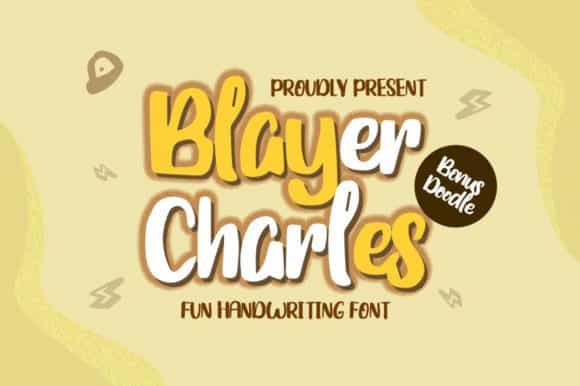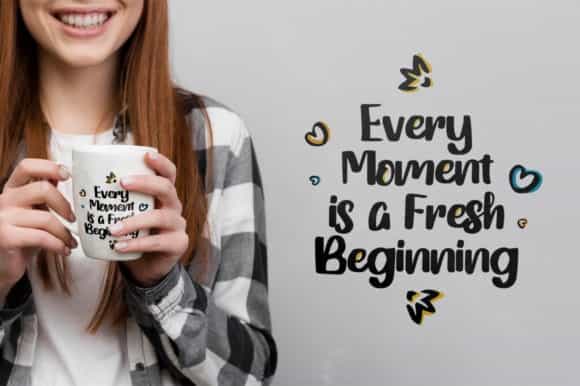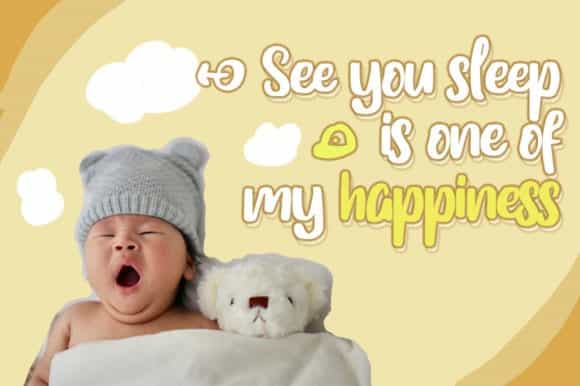
If you have a retro design project or you are in need of a font for your logo, I would recommend the Blayer Charles font. Blayer Charles Font are script fonts with semi-bold shapes, firm lines and the slope of this font is just amazing.